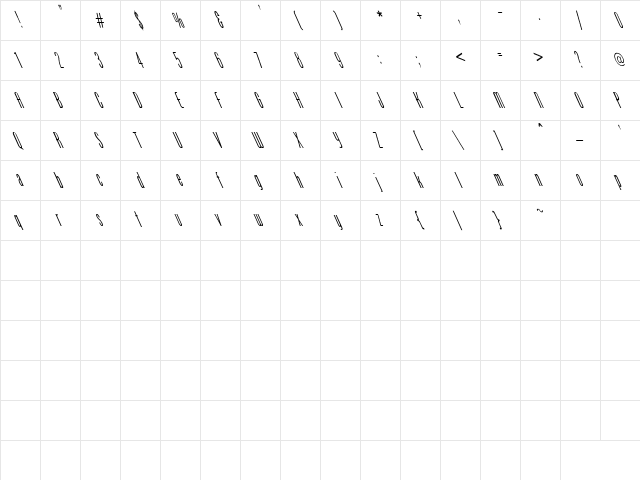
Venus-Normal Extreme Lefti Regular
Complete Venus-Normal Extreme Lefti Regular glyph index. Displaying only characters natively supported by Venus-Normal Extreme Lefti Regular font.
Design Context for Venus-Normal Extreme Lefti
Venus-Normal Extreme Lefti is a composed and adaptable typeface that performs quietly and consistently across a wide range of design contexts.